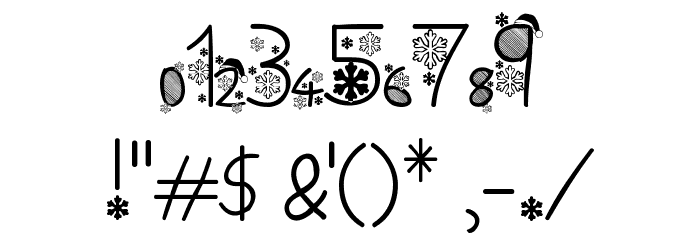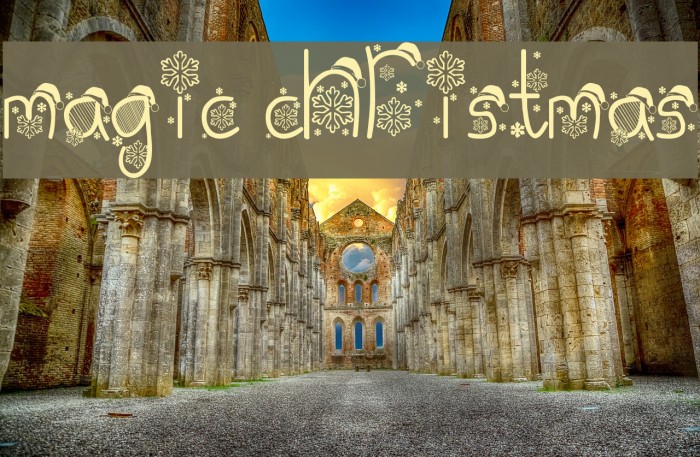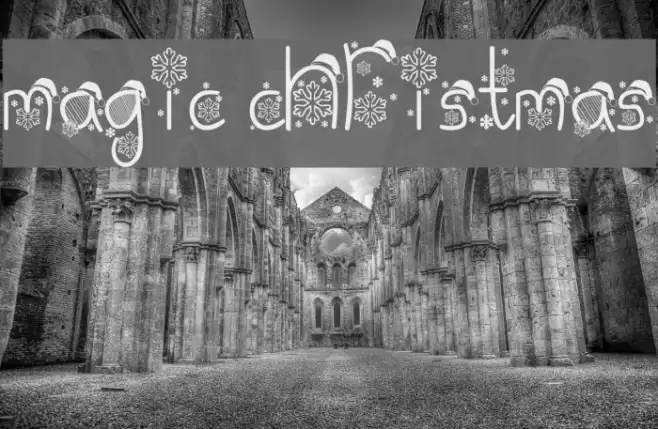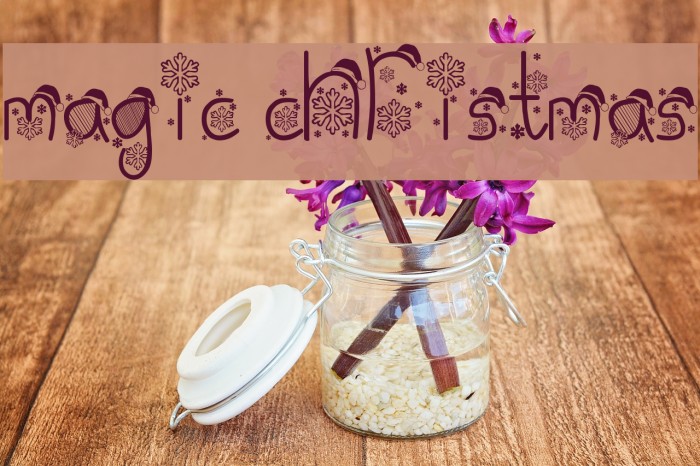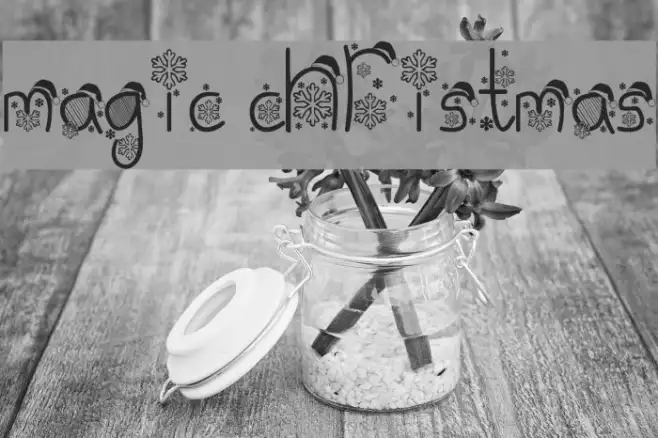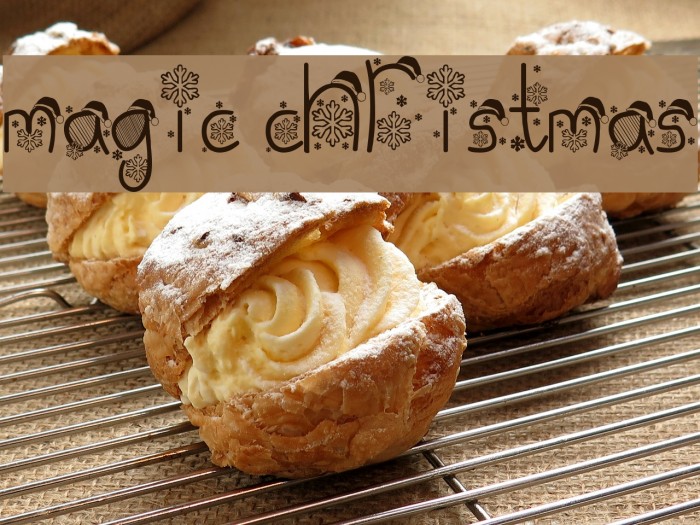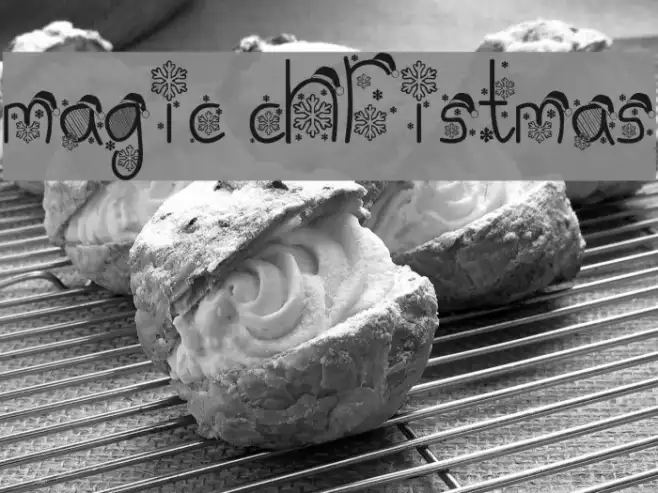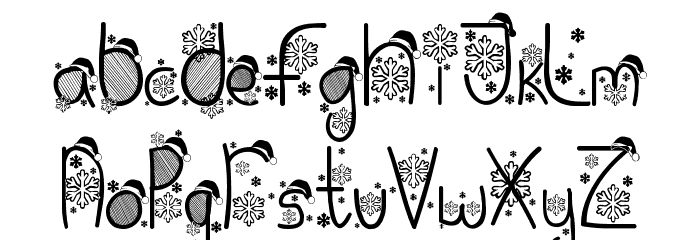
Magic Christmas Font
Magic Christmas Description
This whimsical and festive font captures the essence of the holiday season with playful, decorative elements integrated into each character. Snowflakes, Santa hats, and other Christmas-themed motifs adorn the letters, creating a joyful and lively appearance. The font features a mix of both uppercase and lowercase letters, numbers, and a variety of special characters, all embellished with seasonal decorations. The strokes are bold and rounded, contributing to a friendly and approachable feel. This font is perfect for adding a touch of holiday cheer to any project, making it ideal for festive invitations, greeting cards, and holiday-themed branding.
Proposed ProjectsIdeal for holiday cards, festive invitations, seasonal branding, and Christmas-themed decorations.